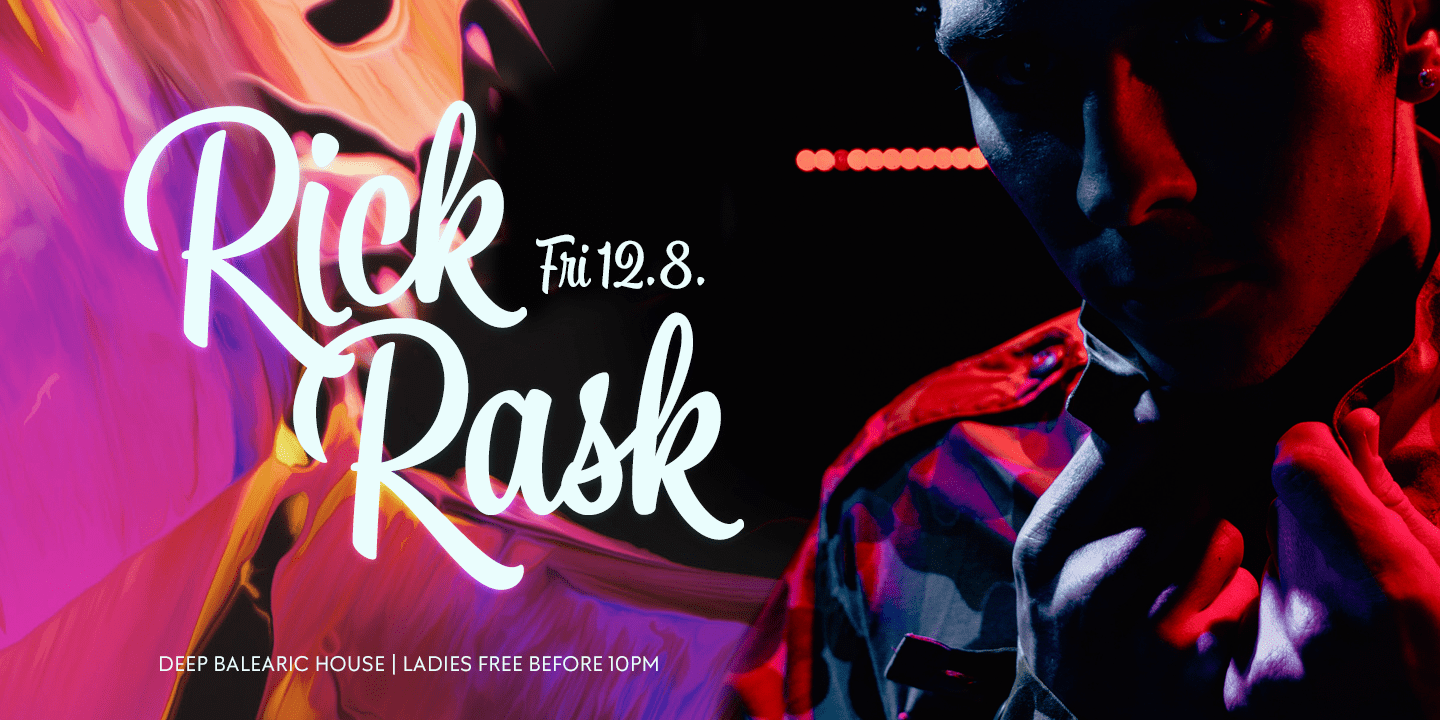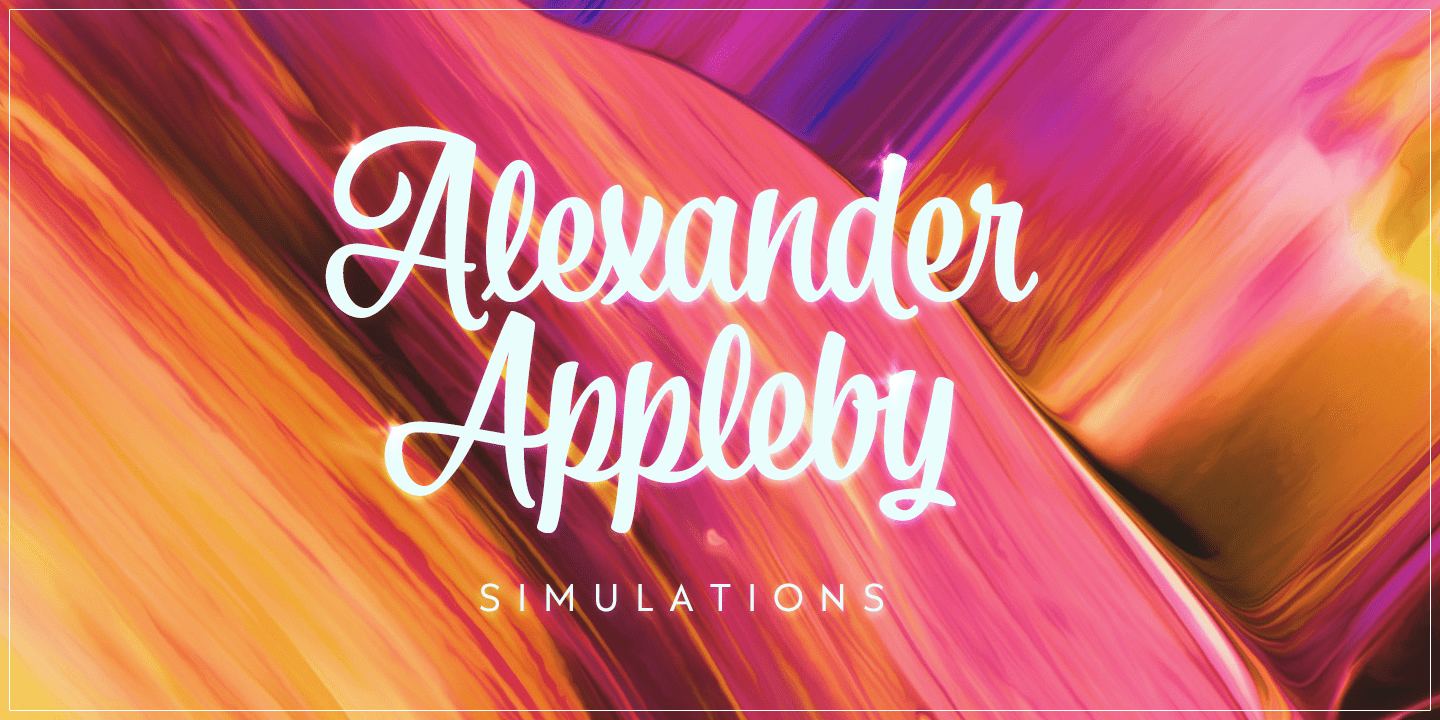
About Ginger John
Ginger John is a strong and expressive sign painting style brush script family with three weights. Ginger John is equipped with automatic Contextual Alternates and Standard Ligatures that ad variety in the flow and keep connections smooth. If that isn\’t…